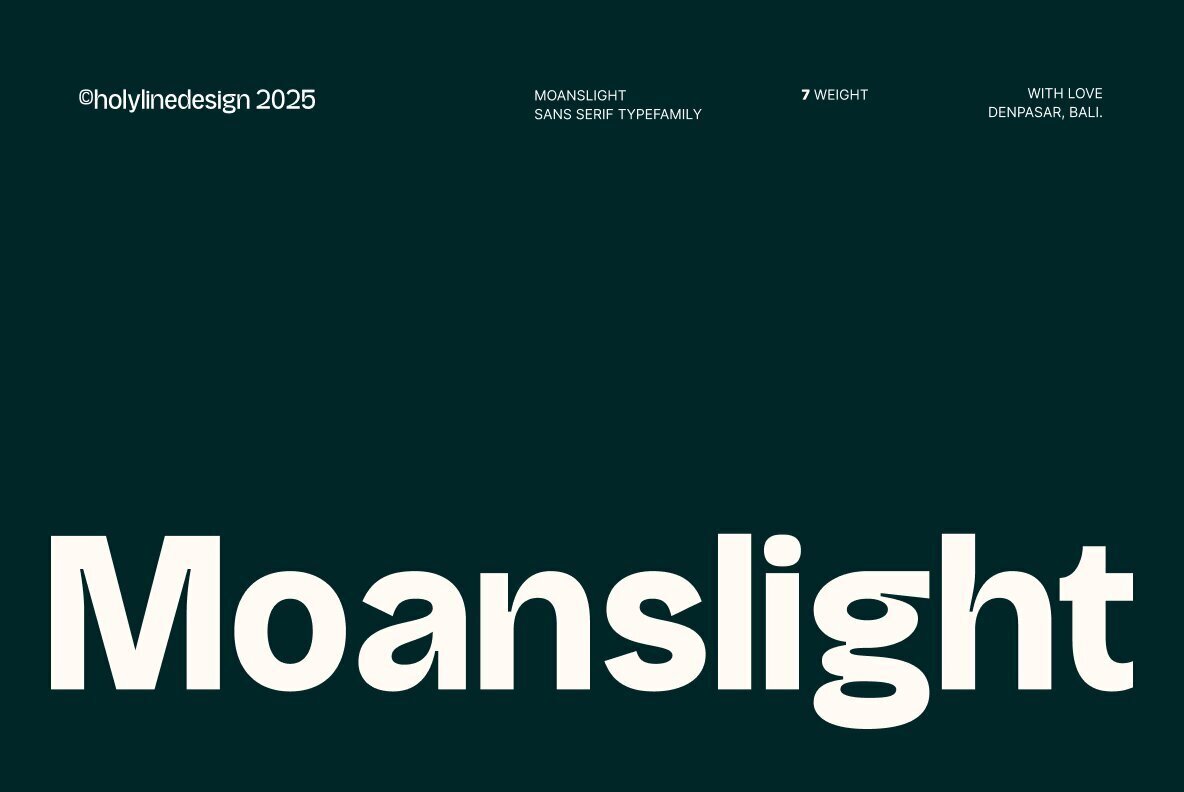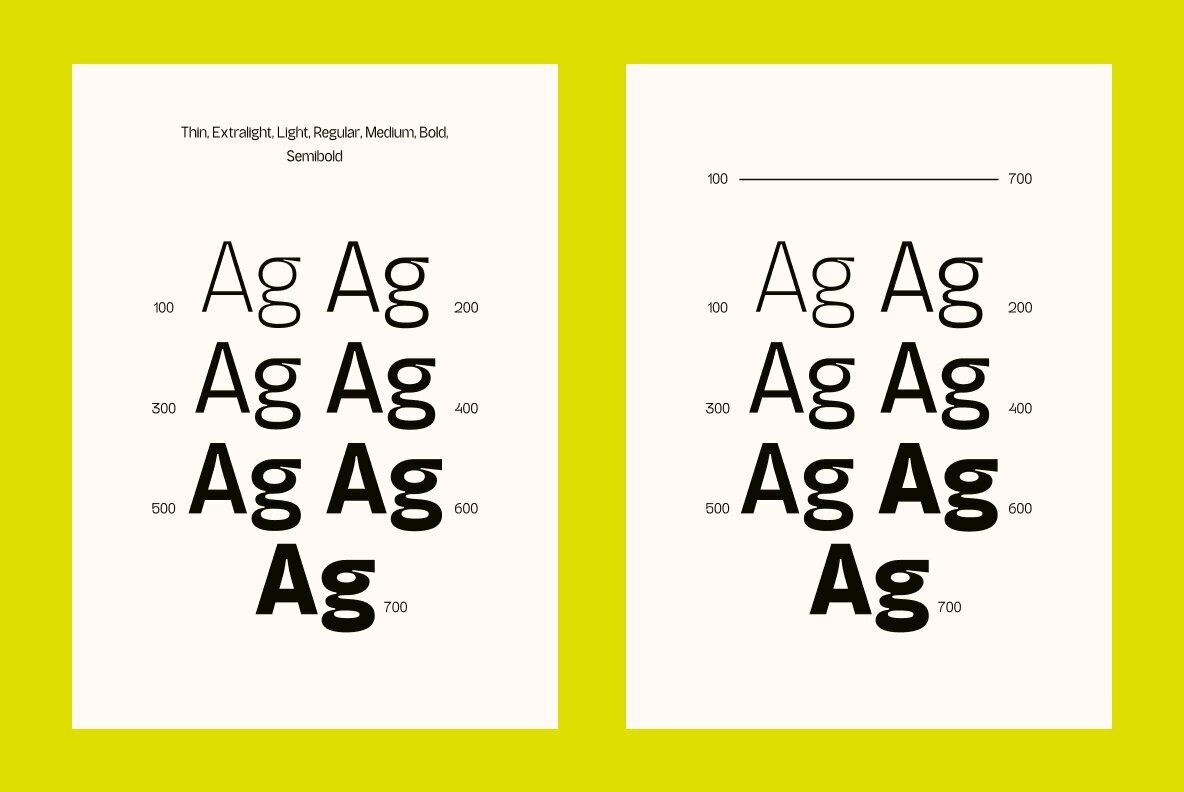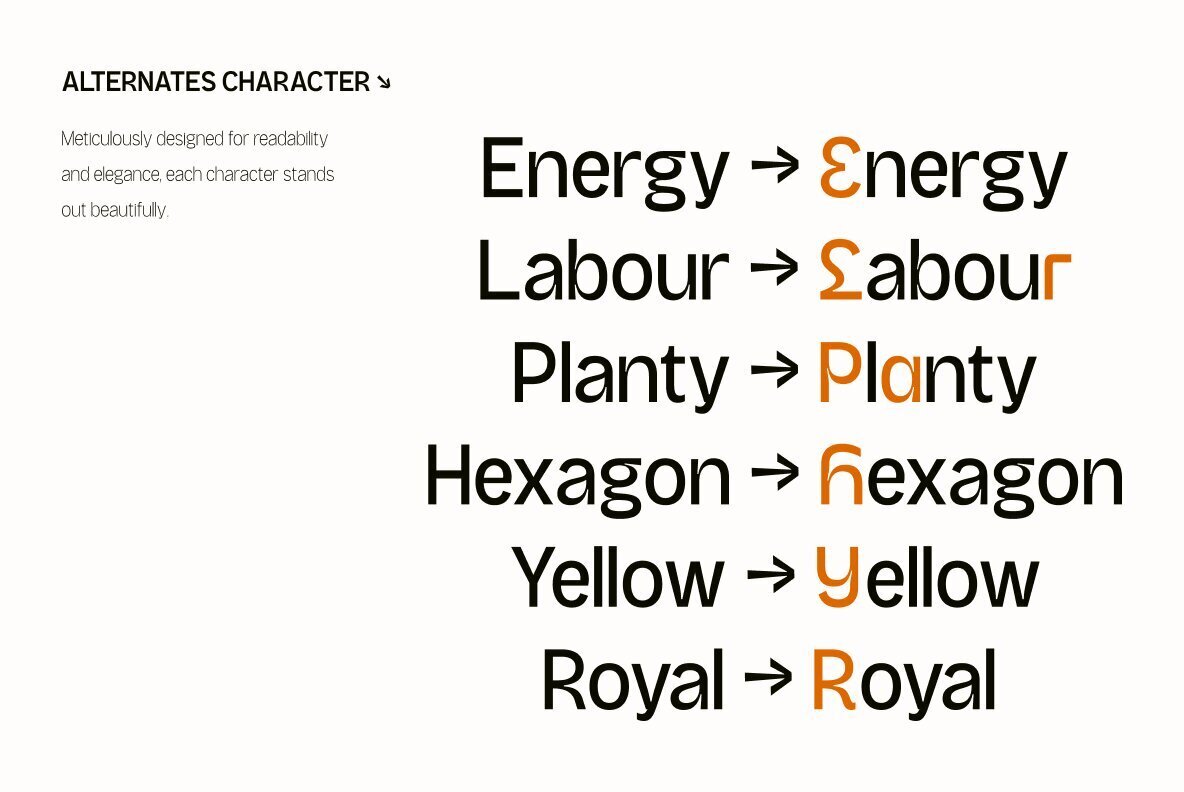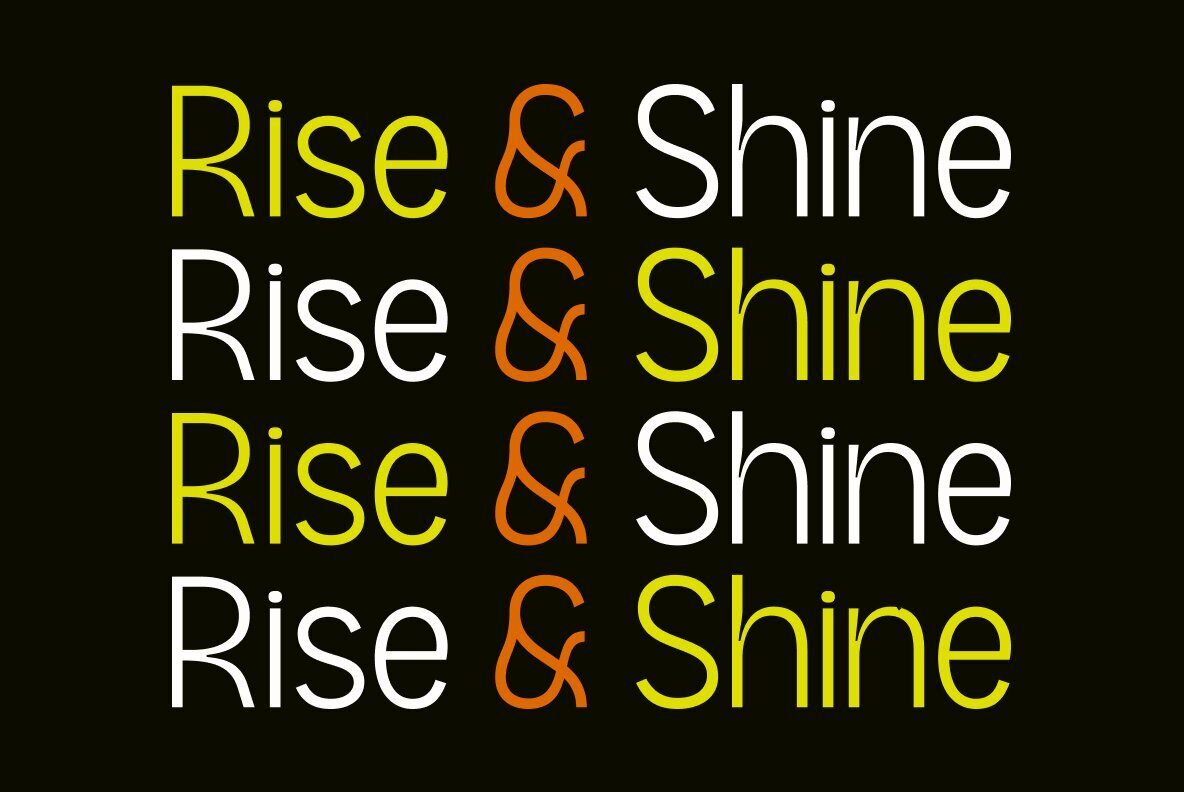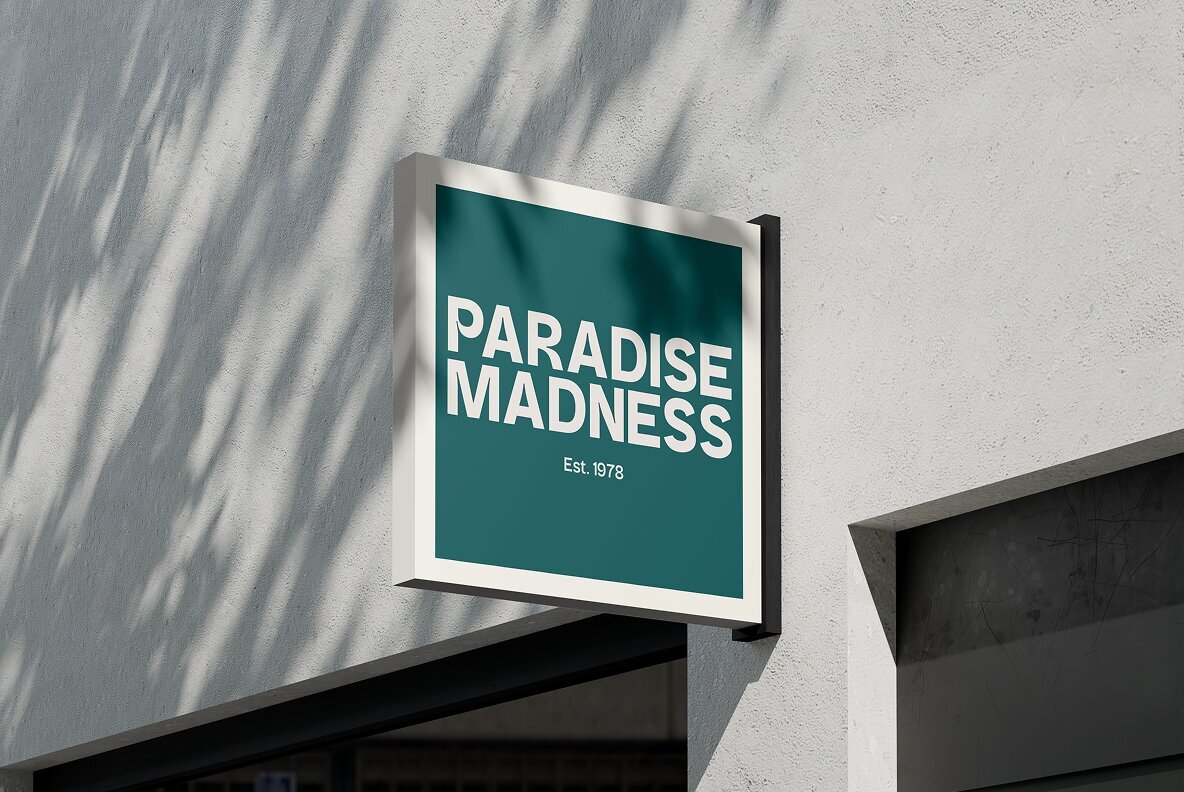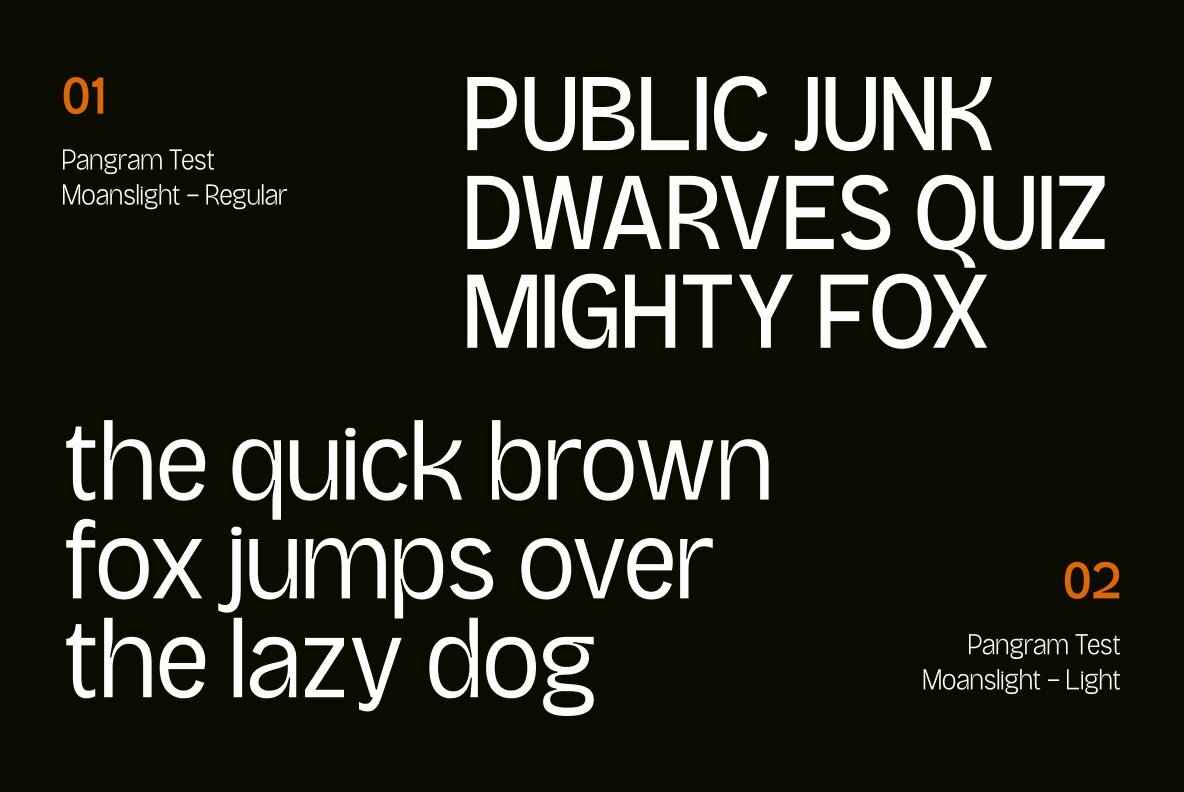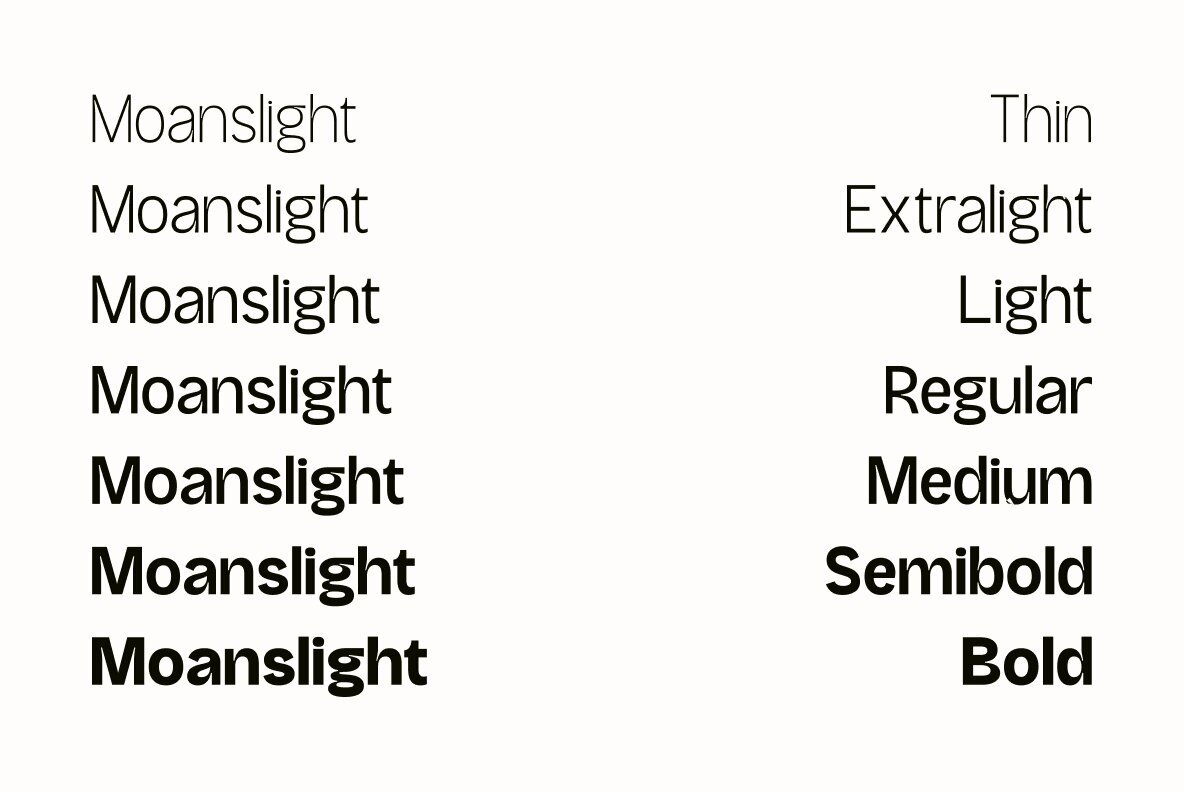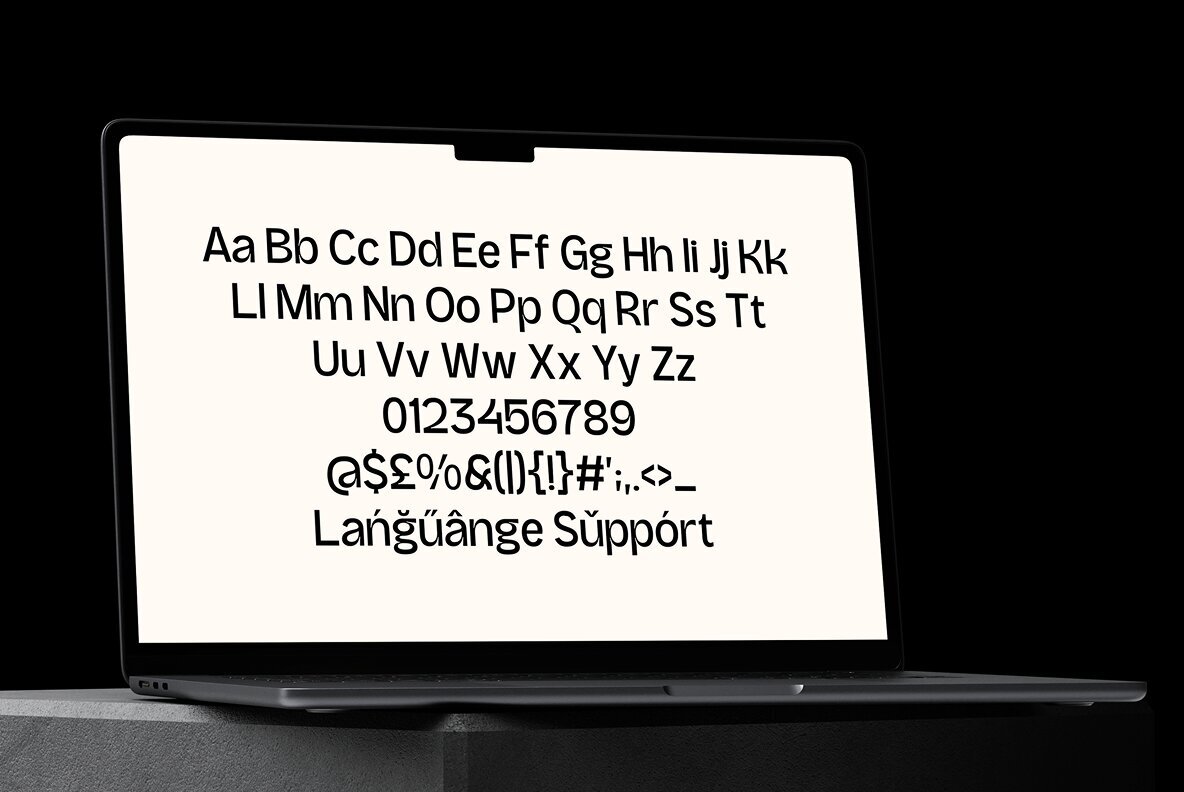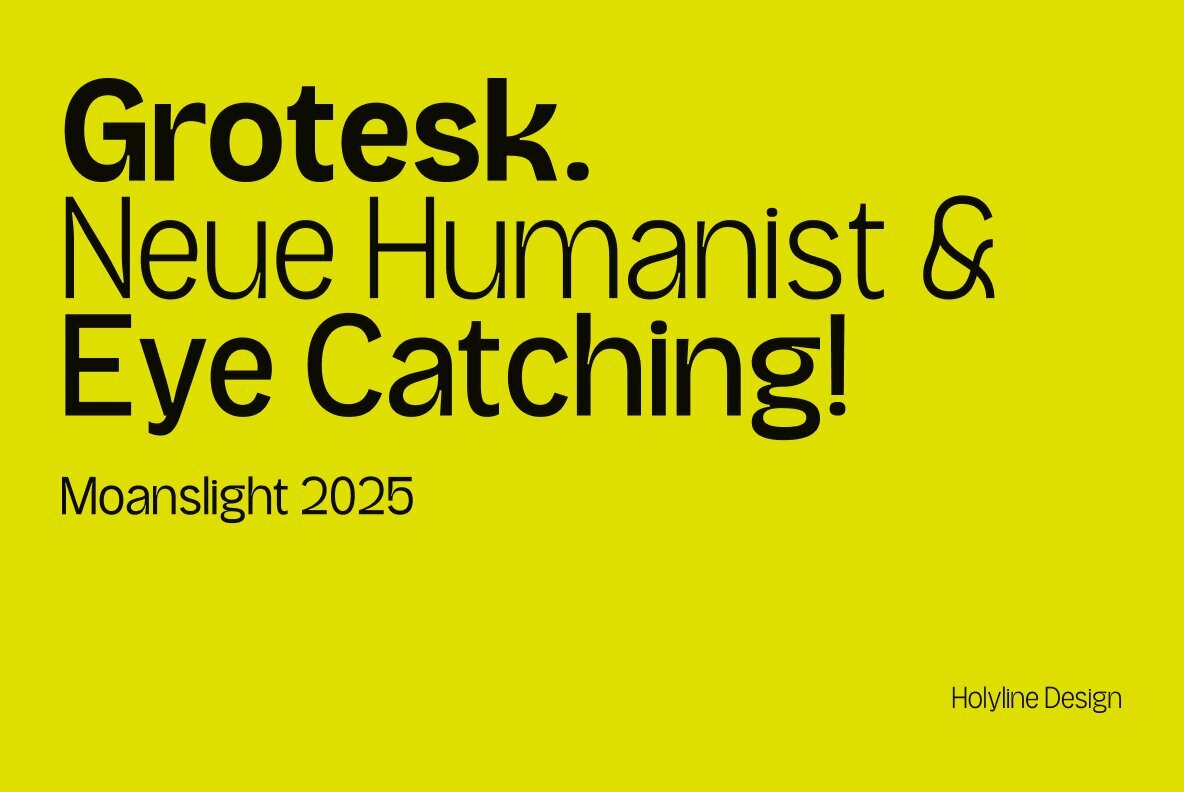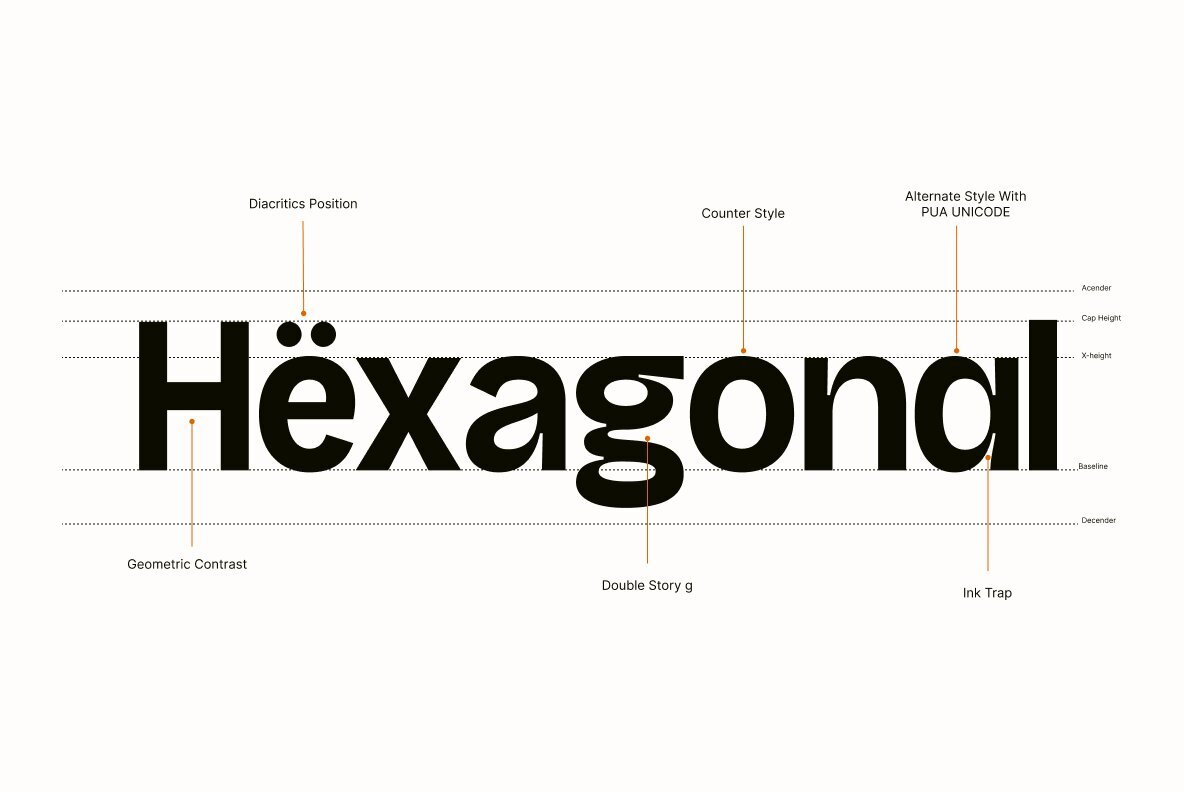
Moanslight Font
Moanslight offers a refined take on contemporary sans serif typography, harmoniously blending the precision of modern grotesk with the elegance of neue influences. This font is thoughtfully designed for creatives who value clarity infused with distinctive character. Available in seven varying weights, from thin to bold, Moanslight provides versatile options for any design need. Whether employed in headlines, branding, or digital interfaces, its sharp structure and balanced rhythm ensure a clean yet impactful presence. Perfect for editorial layouts and minimalist aesthetics, Moanslight enriches visual communications with a timeless sophistication.Moanslight: A Sophisticated Sans Serif Display Font